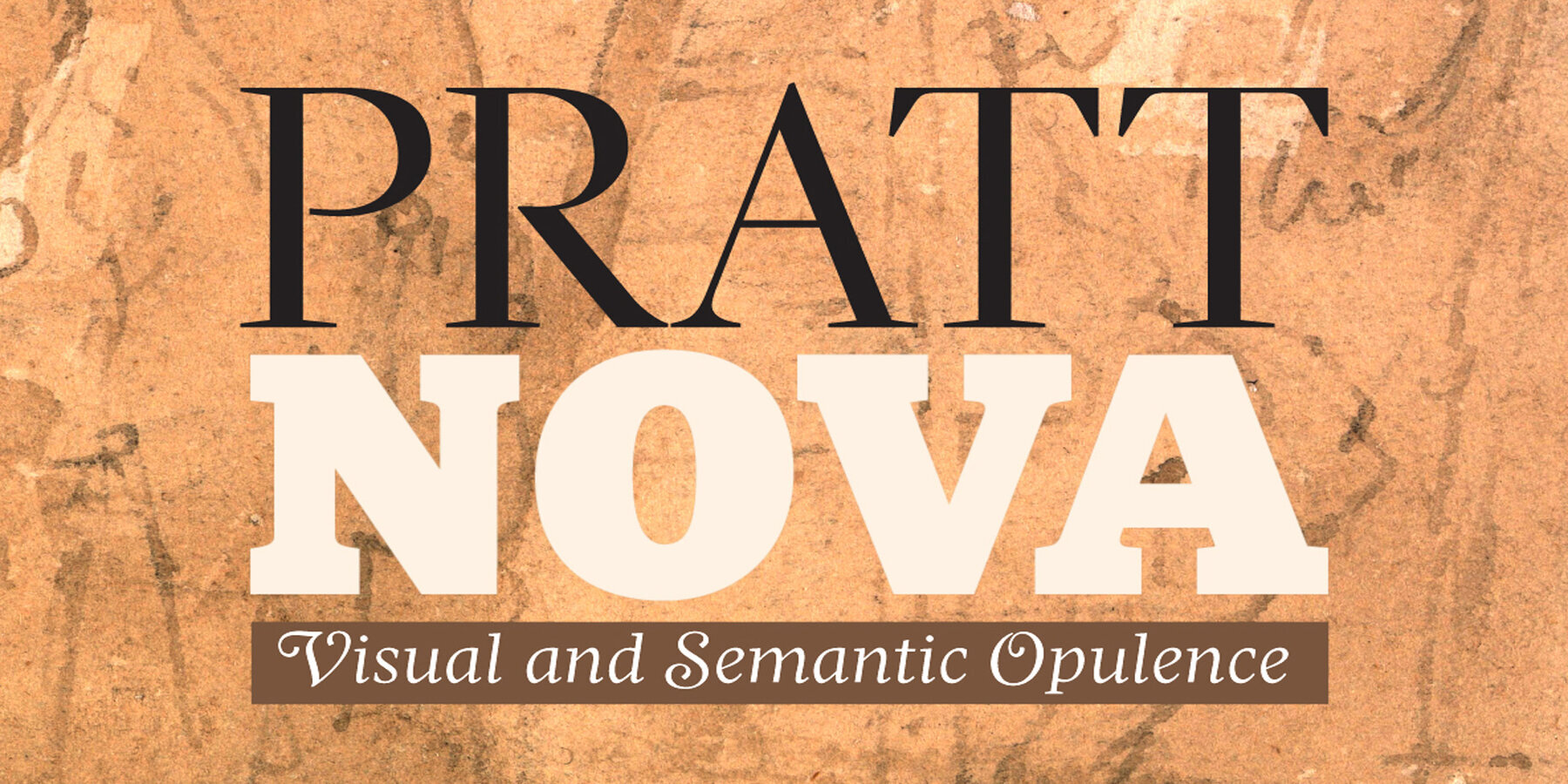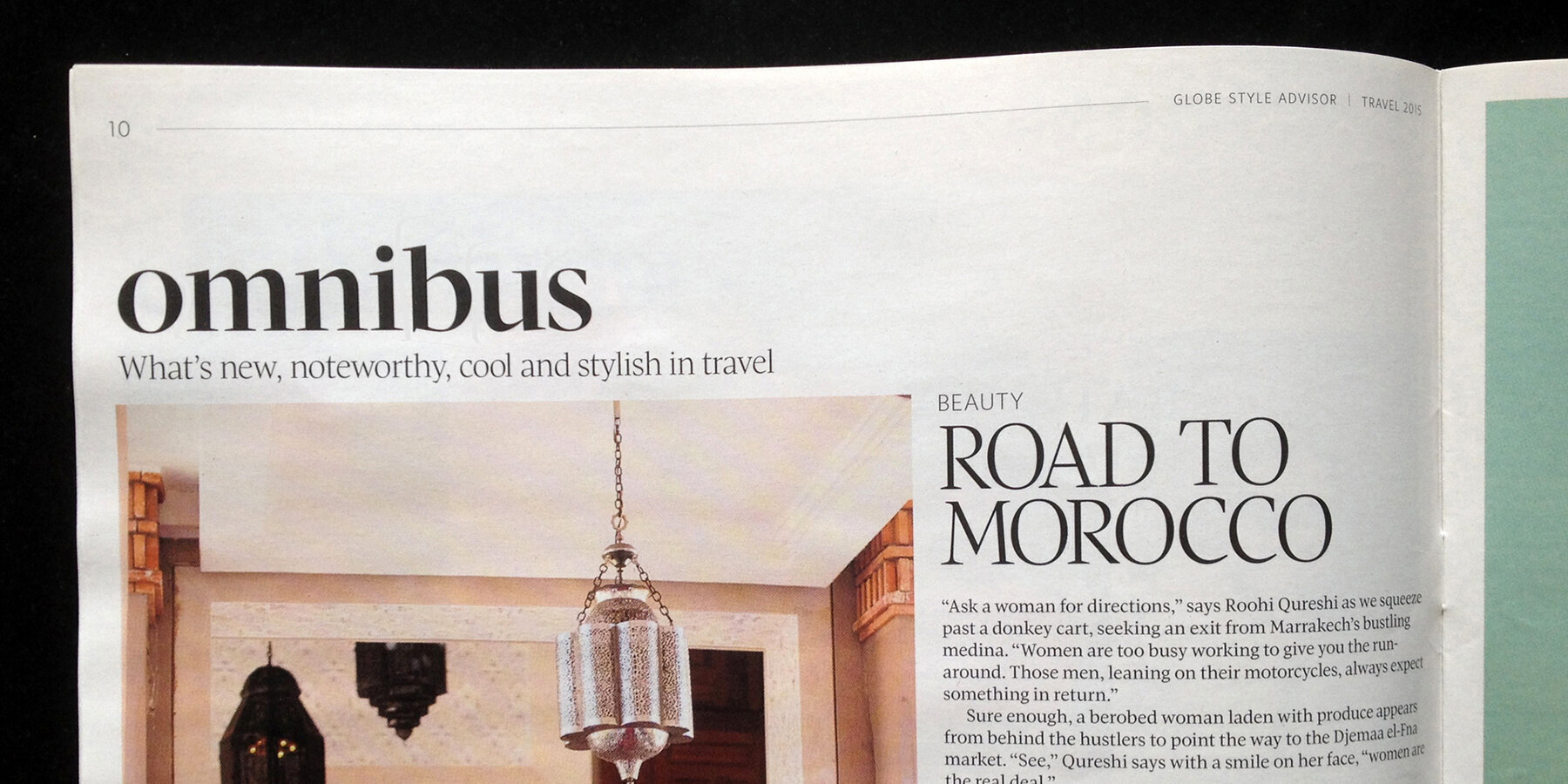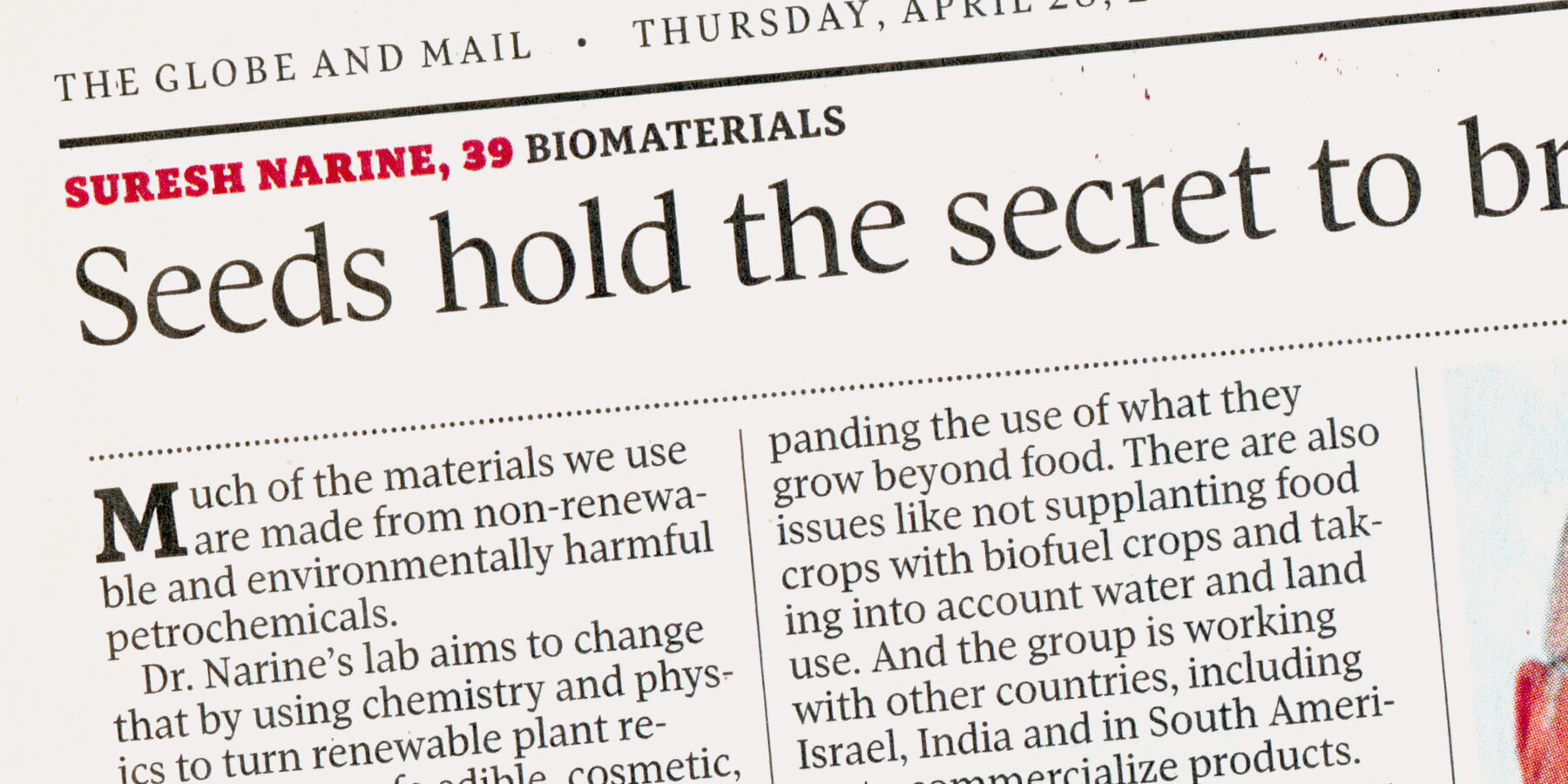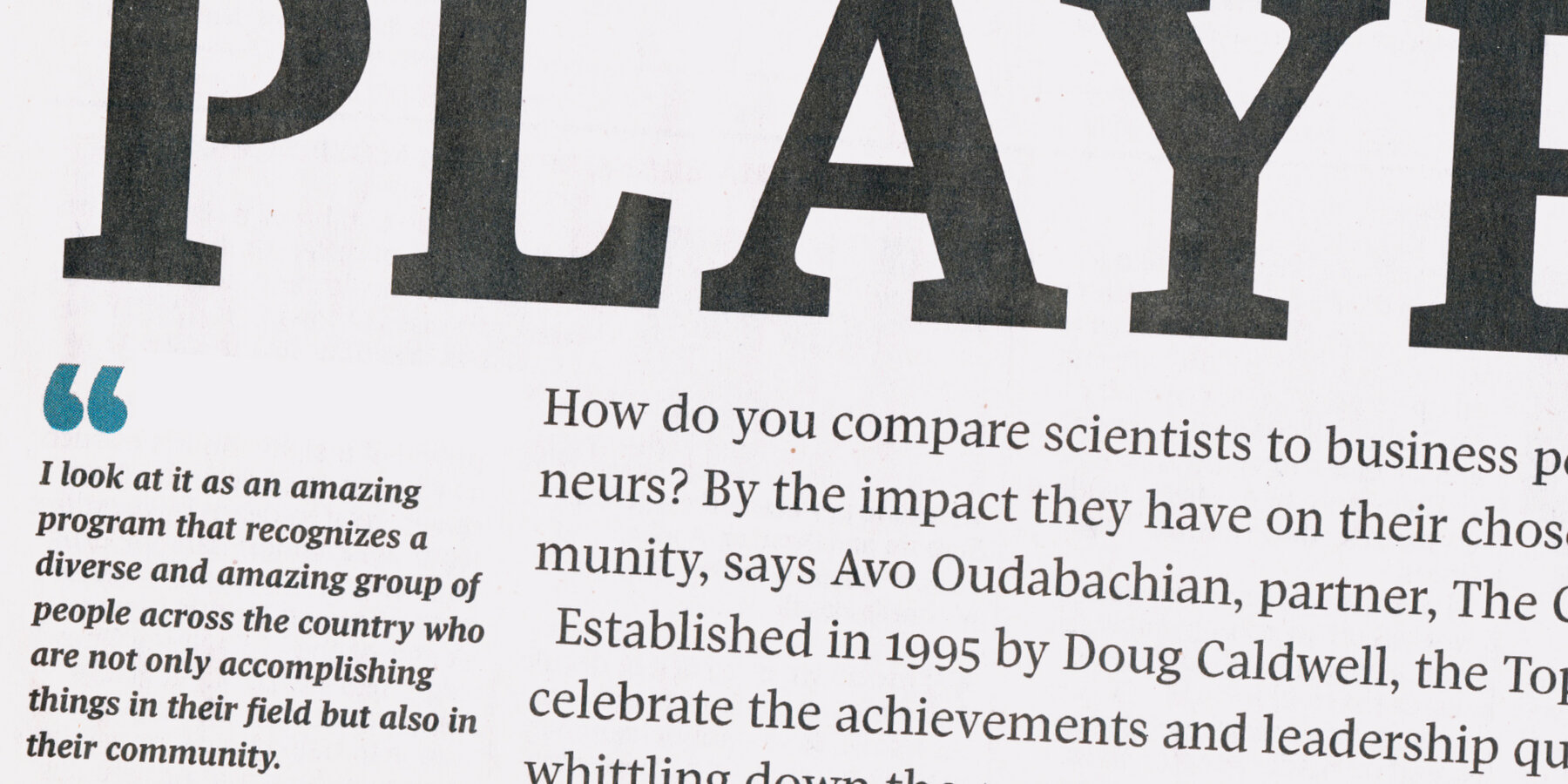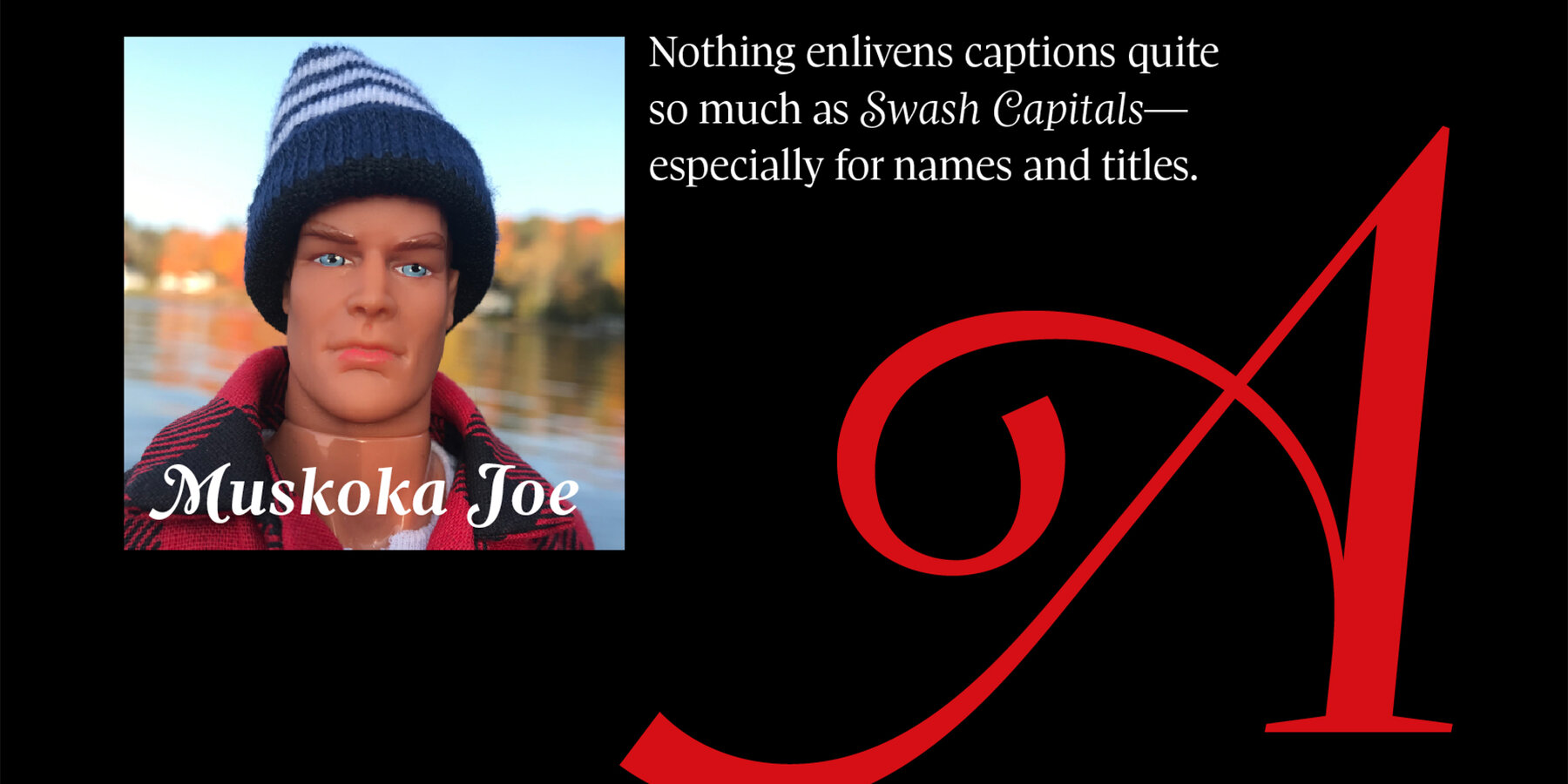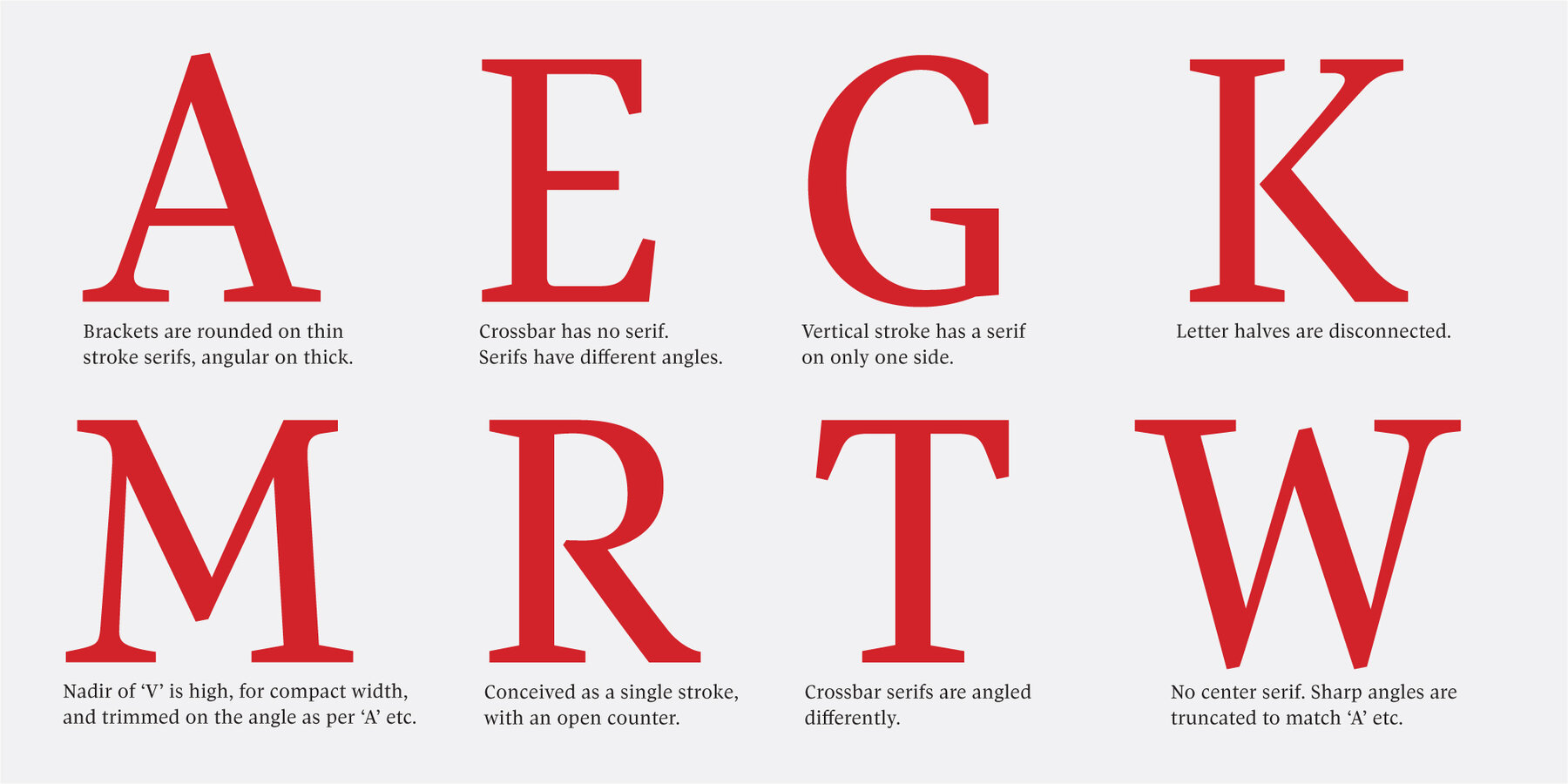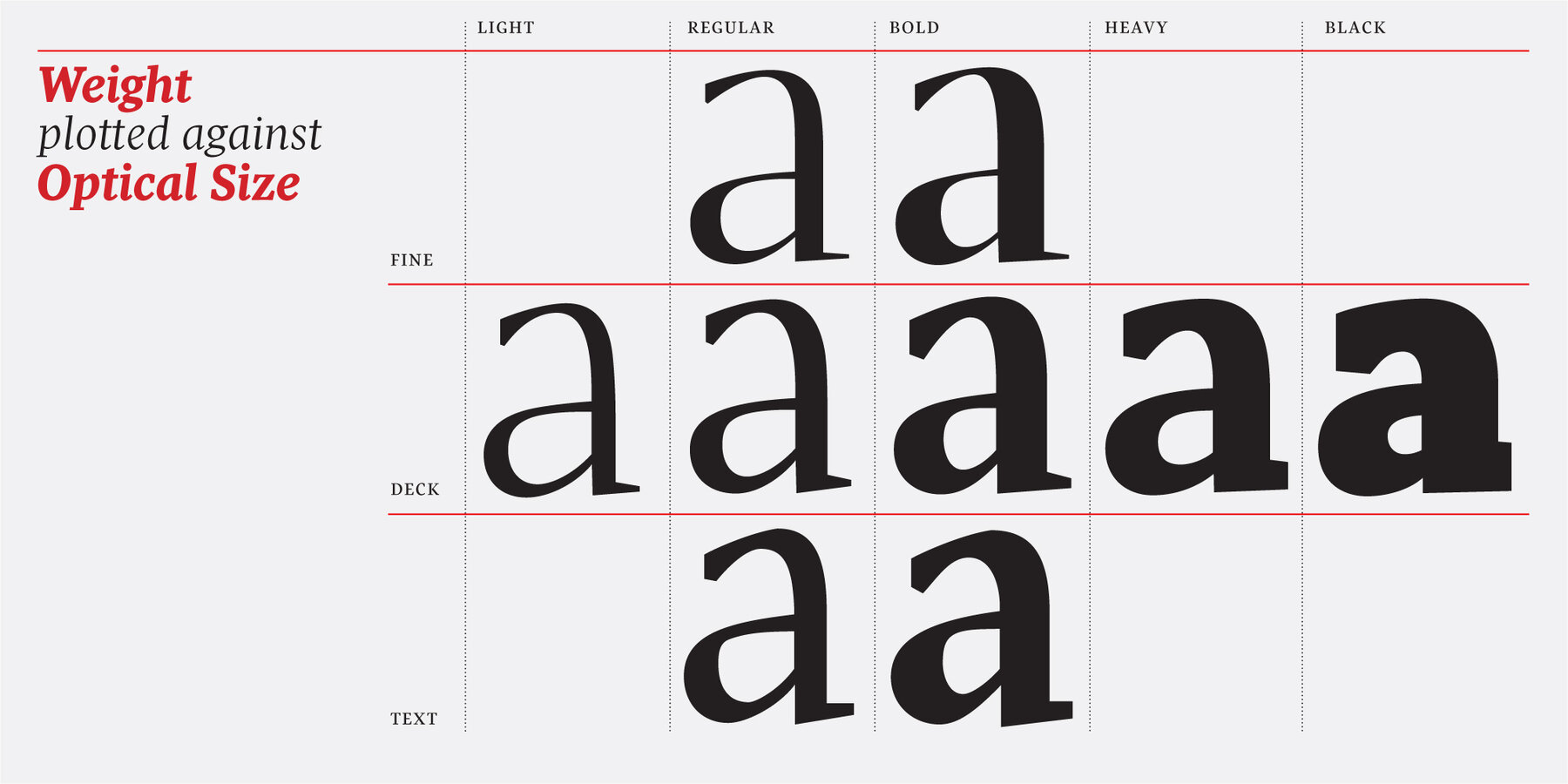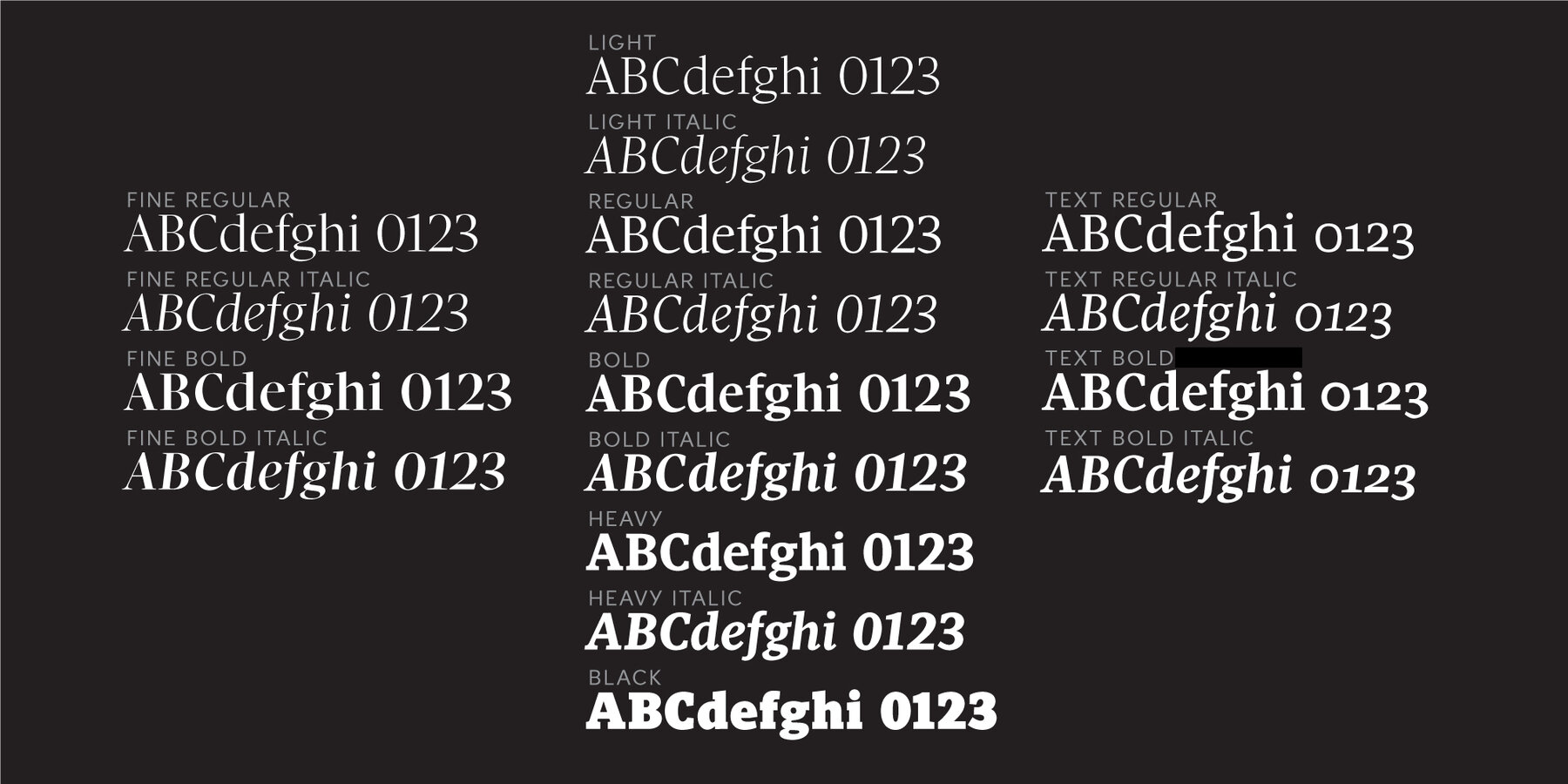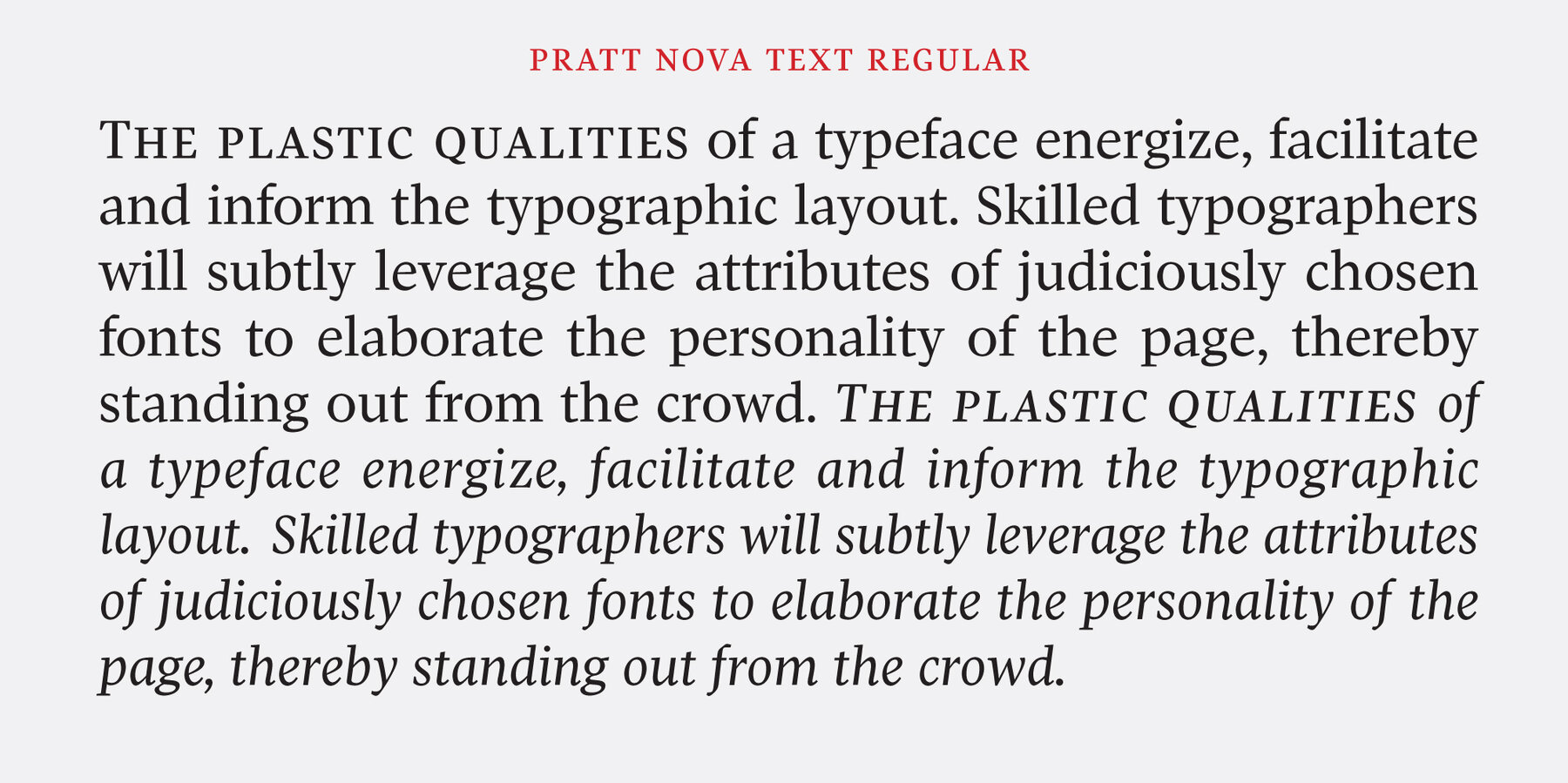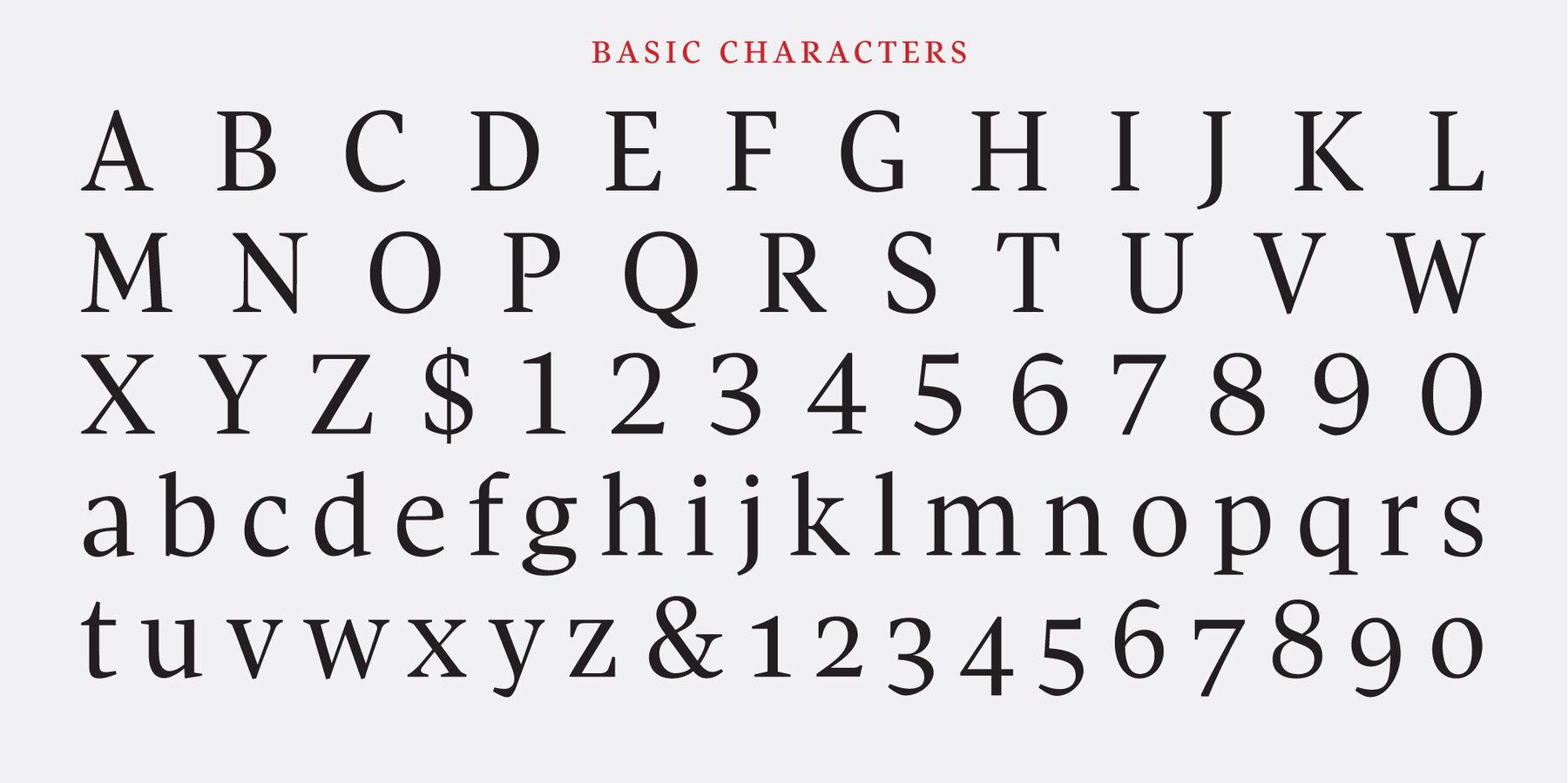
Pratt Nova Font
Shaped by constraint to accommodate a large character count, Pratt Nova has massive form: semi-condensed, large x-height, short descenders and capitals. And yet it transcends its restrictive origins in abundance, expressing a spirit of visual and semantic opulence, equipping the typographer with a comprehensive array of elegantly harmonized fonts, all rigorously drawn, superbly fitted iterations of a single, profoundly original design.
The signature style of The Globe and Mail, “Canada’s National Newspaper”, for which it was commissioned by its creative director, David Pratt.